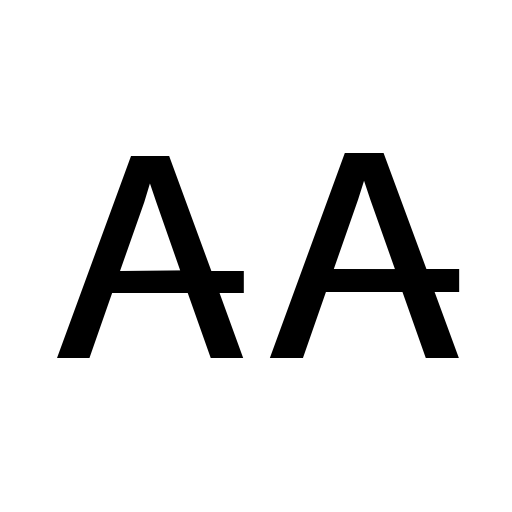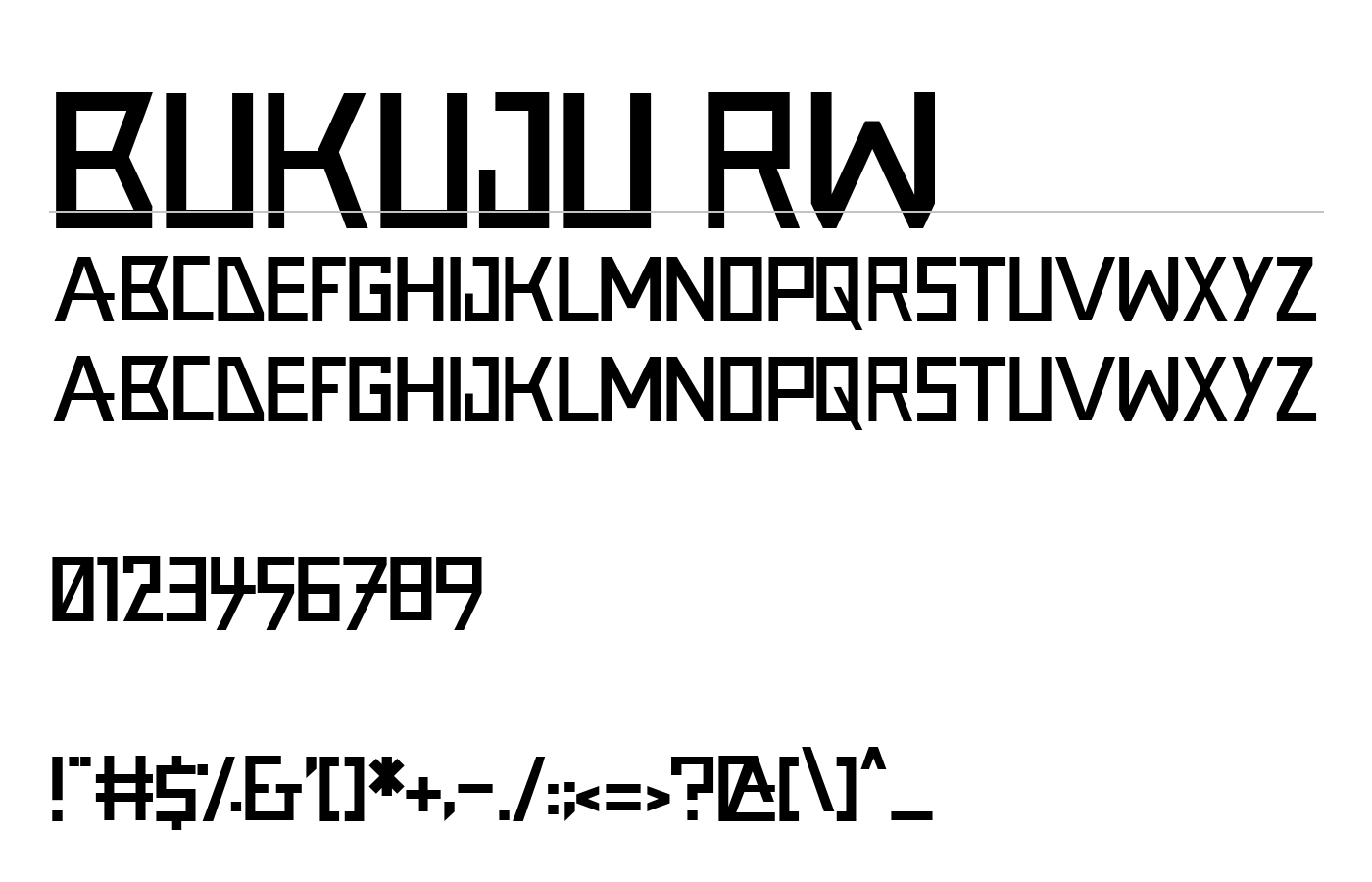
Bukuju RW is a geometric, condensed sans serif font with a strong, technical character showcased through its sharp, angular letterforms and consistent stroke weight. Its modern and edgy style lends itself well to branding, headlines, and design projects that require a bold, futuristic feel with high legibility. This font works best in contexts where a distinctive, industrial look is desired, such as tech logos, posters, and digital interfaces.
Bukuju RW Font
About Bukuju RW Font
| Designer | Robert Watts |